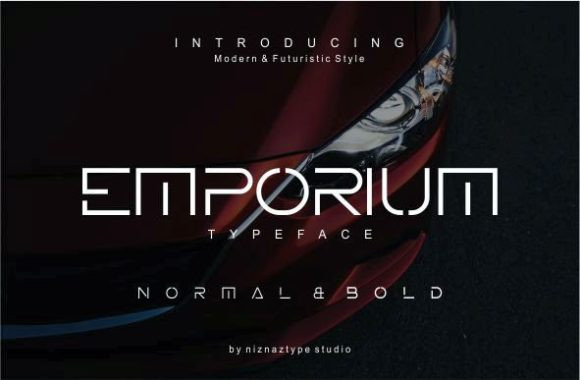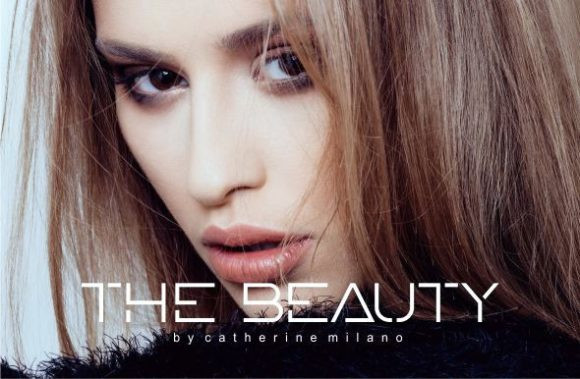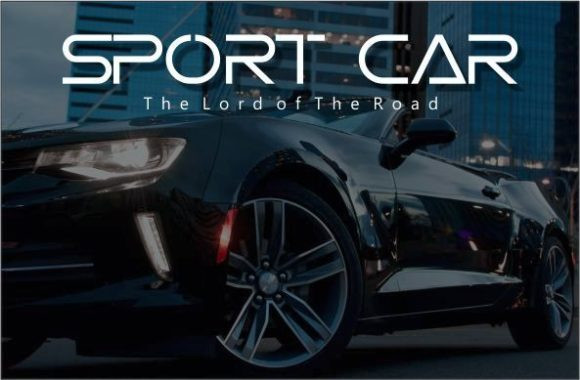
Emporium Font
Emporium is a sans serif font available in 2 styles, Normal and Bold.
This font is a modern and futuristic typeface suitable for all your graphic design needs.